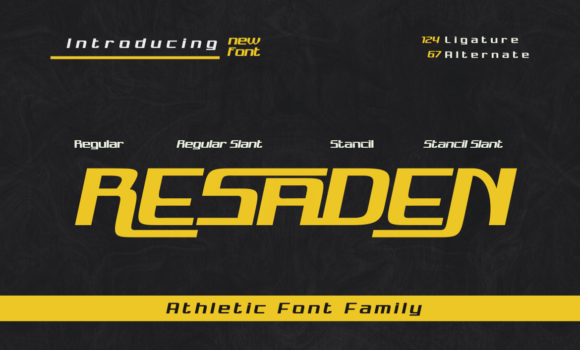
resaden
Resaden Font – Free Download Introduction to Resaden Font Resaden is a powerful display font designed to grab attention and highlight any project that calls for a bold, strong, vibrant, and sporty look. 📸 Preview Gallery 6 images 📌 Product